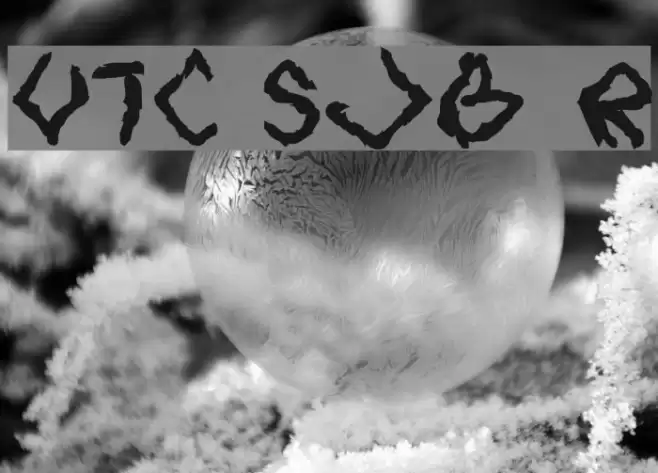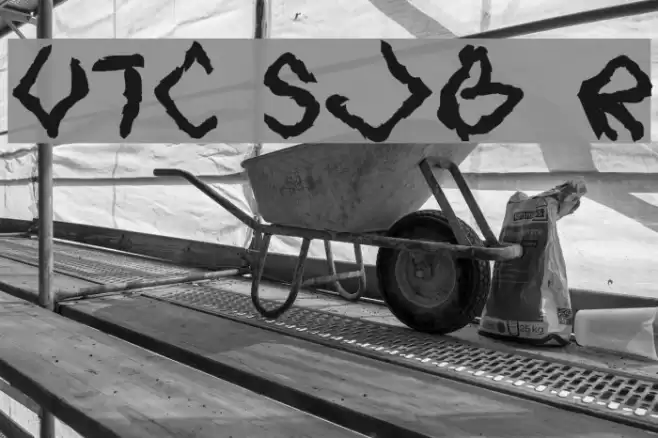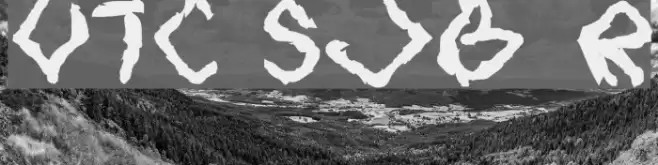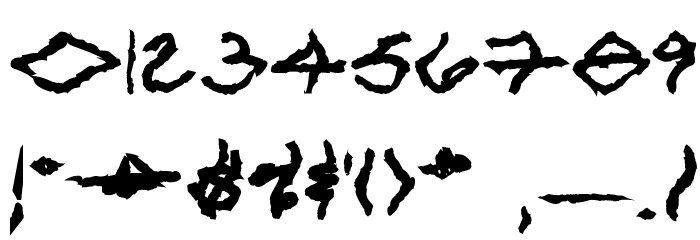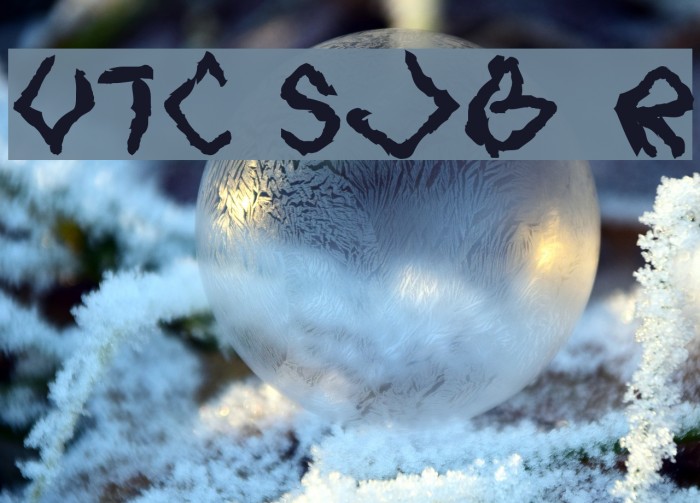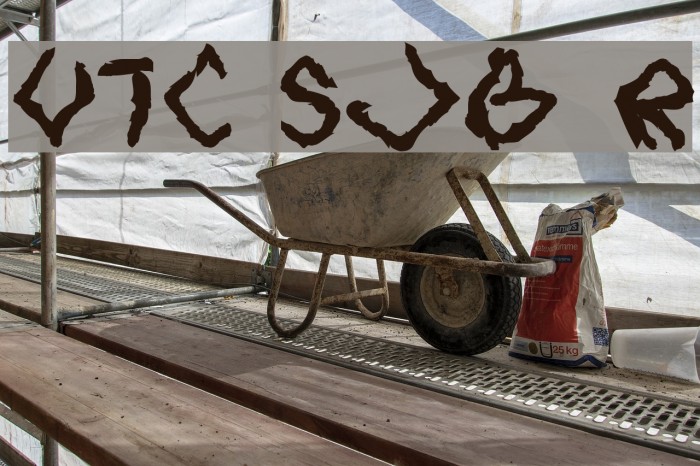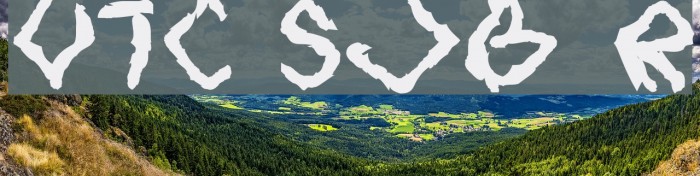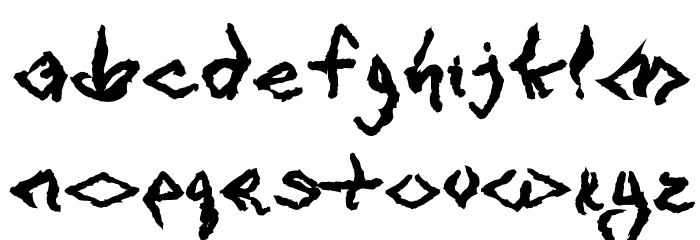
VTC SeeJoBreak Regular Font
VTC SeeJoBreak Regular Description
This font exhibits a highly decorative and abstract style, characterized by its jagged and irregular strokes that give it a chaotic yet artistic appearance. The letters are formed with sharp angles and uneven lines, creating a sense of movement and energy. The uppercase and lowercase letters maintain a consistent style, with each character appearing unique and distinct. Numbers and special characters follow the same design principles, adding to the font's cohesive yet unpredictable aesthetic. This font is ideal for projects that require a bold and unconventional look, capturing attention with its dynamic and edgy design.
A decorative and abstract font with jagged, irregular strokes and a chaotic artistic style from Script fonts.
- Proposed Projects: Ideal for album covers, posters, graffiti art, and any project needing a bold, unconventional look.
- Use Case: Logos, Headlines, Artistic projects